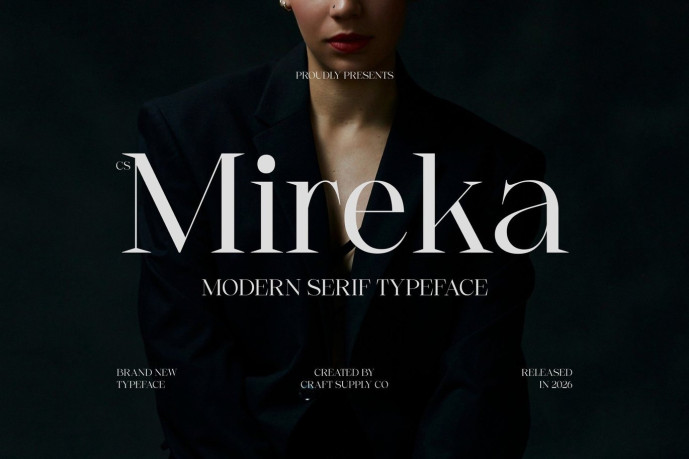
Mireka – Modern Serif Font
Designer: Craft Supply Co.
CS Mireka – Modern Serif Font: Where Refined Elegance Meets Editorial Luxury Elegant Letterforms with High-Contrast Beauty This is a modern serif font featuring elegant, refined letterforms and beautifully balanced high-contrast strokes. Its graceful proportions and delicate serif details create a sophisticated visual rhythm that feels timeless, polished, and effortlessly luxurious. Every character is designed to express refinement while maintaining exceptional readability and visual harmony.
Sophisticated Design with Premium Appeal Blending classic serif elegance with contemporary precision, this font embodies the aesthetics of luxury editorial typography. Its clean structure and dramatic contrast give every word a graceful presence, making it ideal for projects that require both professionalism and high-end visual impact. The result is typography that feels exclusive, stylish, and enduring.
Timeless Typography for Elegant Visual Identities This font creates a distinctive visual identity that communicates sophistication and confidence. Whether used for striking headlines or refined brand materials, its elegant construction delivers a memorable impression that enhances the overall sense of quality and prestige.
Perfect for Luxury products and High-End Design Perfect for luxury products, editorial layout, beauty and skincare packaging, perfume labels, logos, magazines, invitations, premium branding, advertising campaigns, and high-end visual identities. Its fusion of elegant serif letterforms, high-contrast strokes, and luxurious editorial aesthetics makes it ideal for projects that communicate exclusivity, sophistication, and timeless style.
Uppercase and lowercase characters